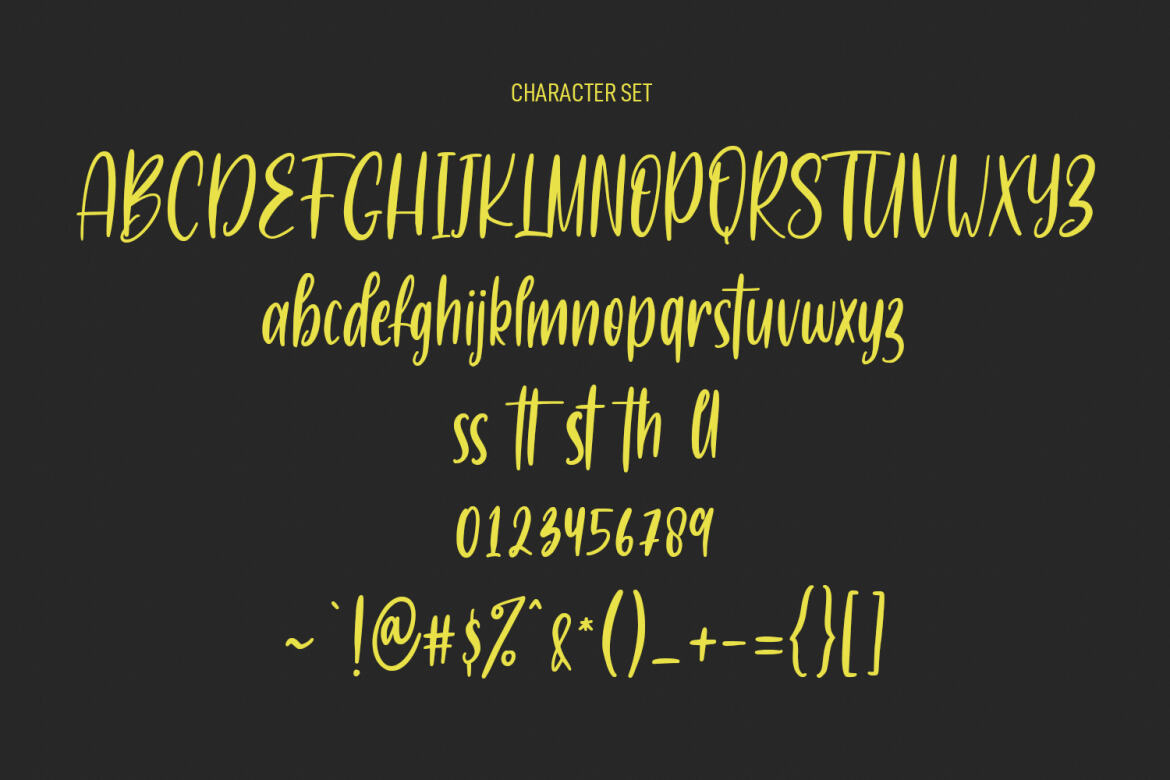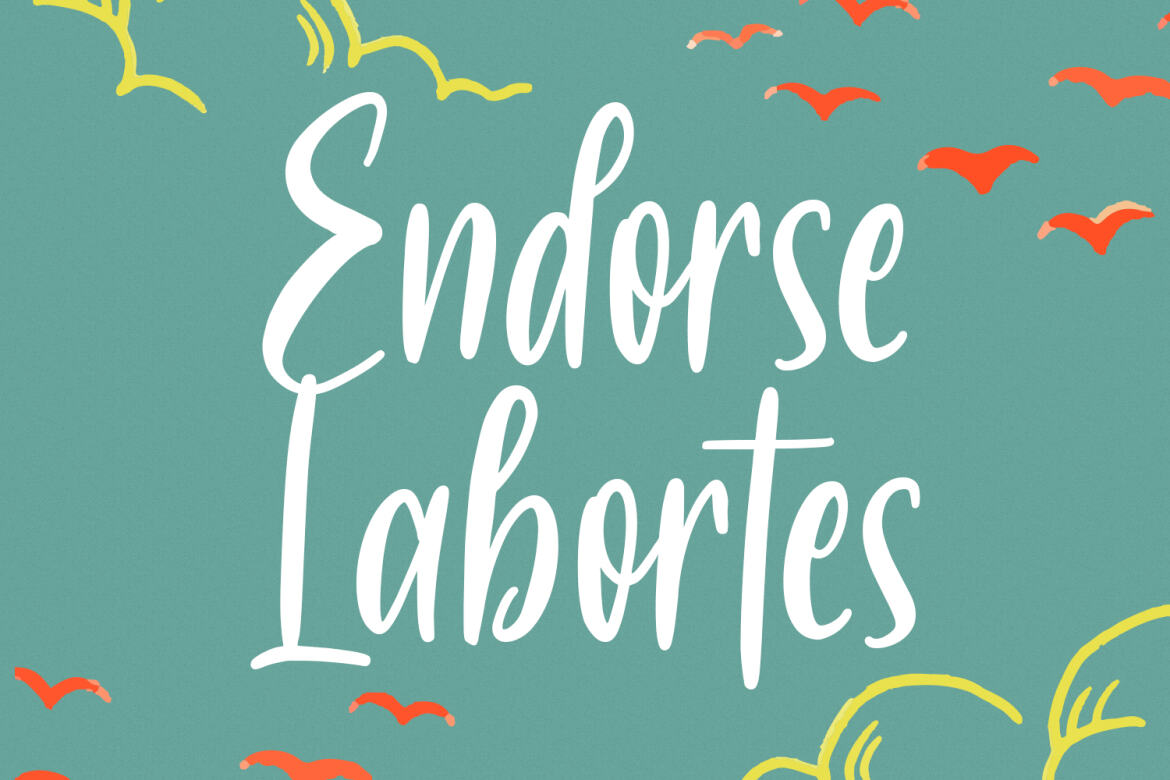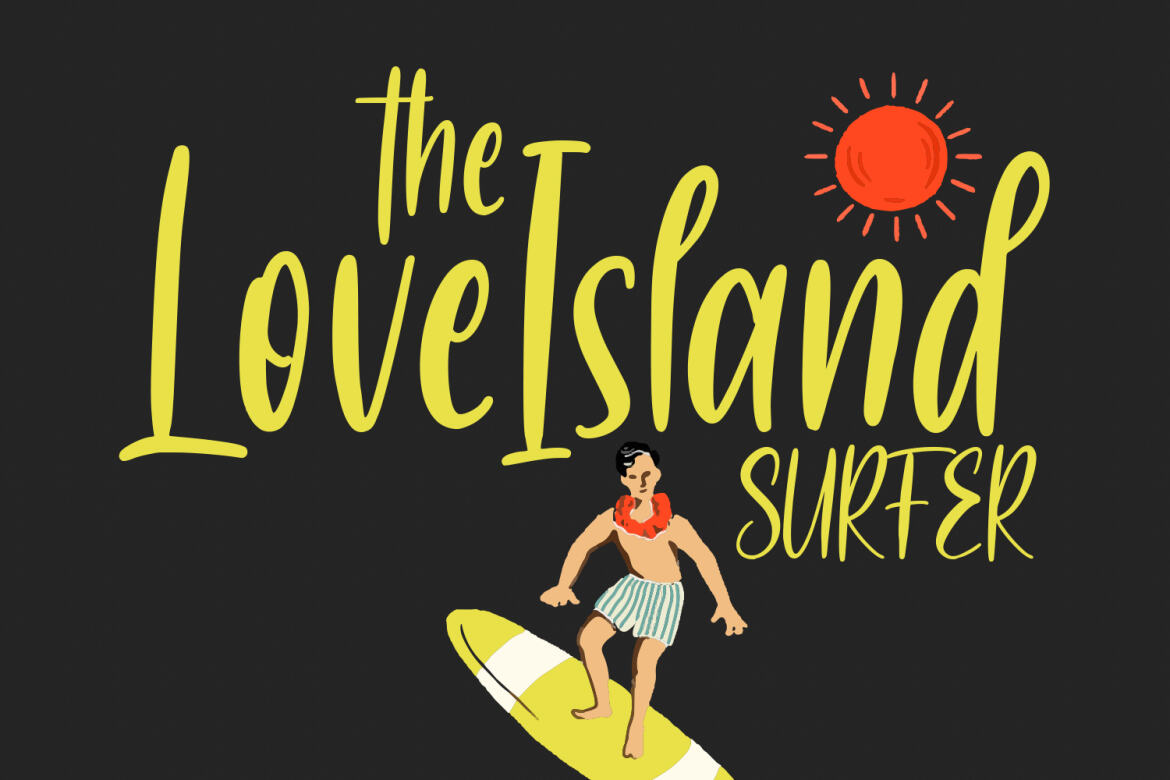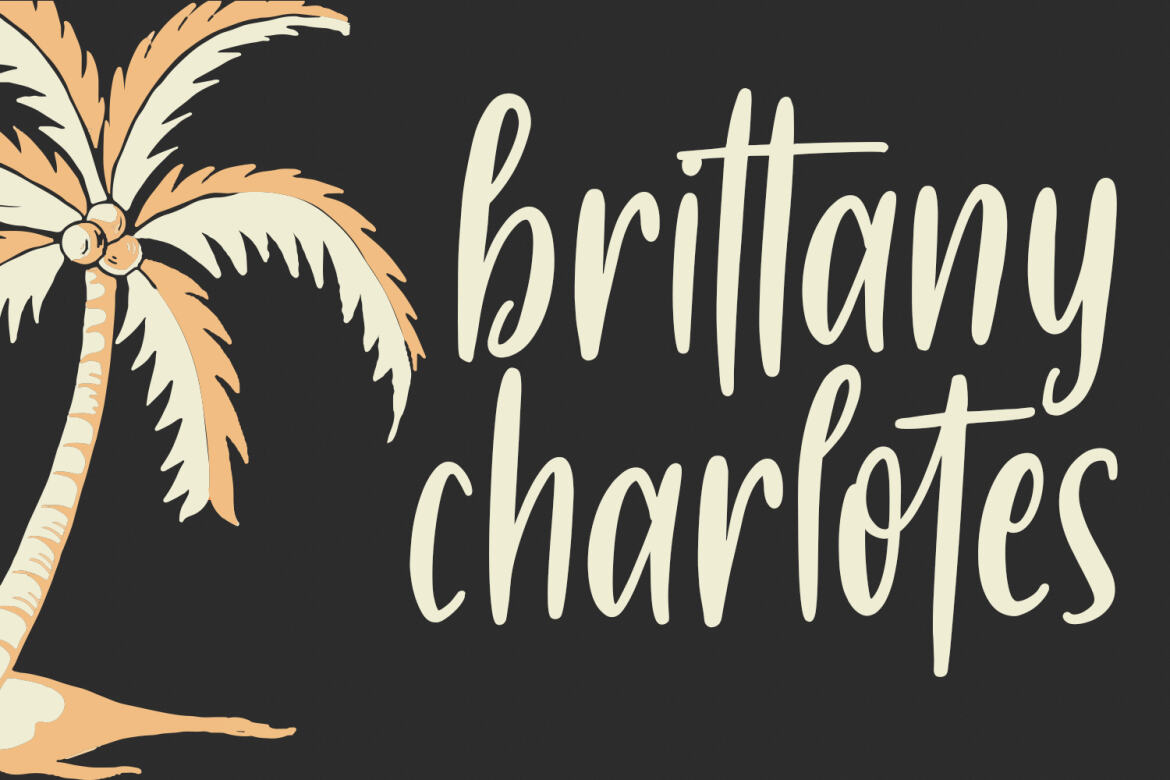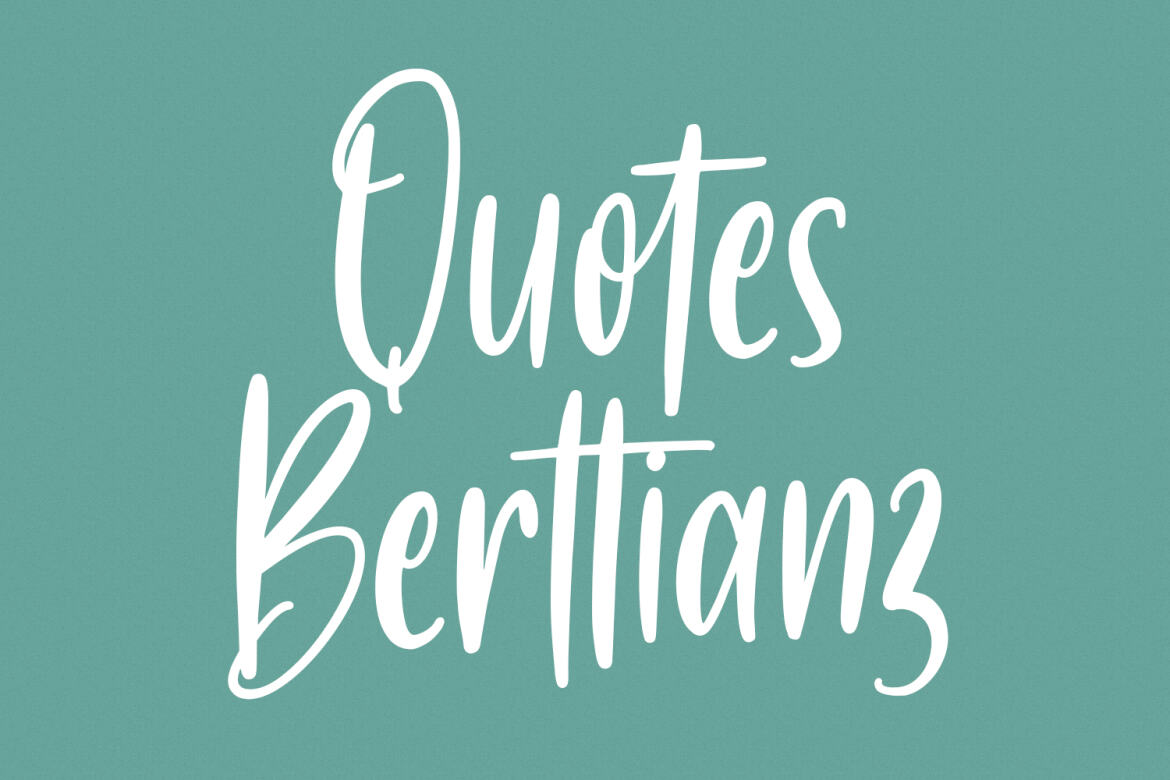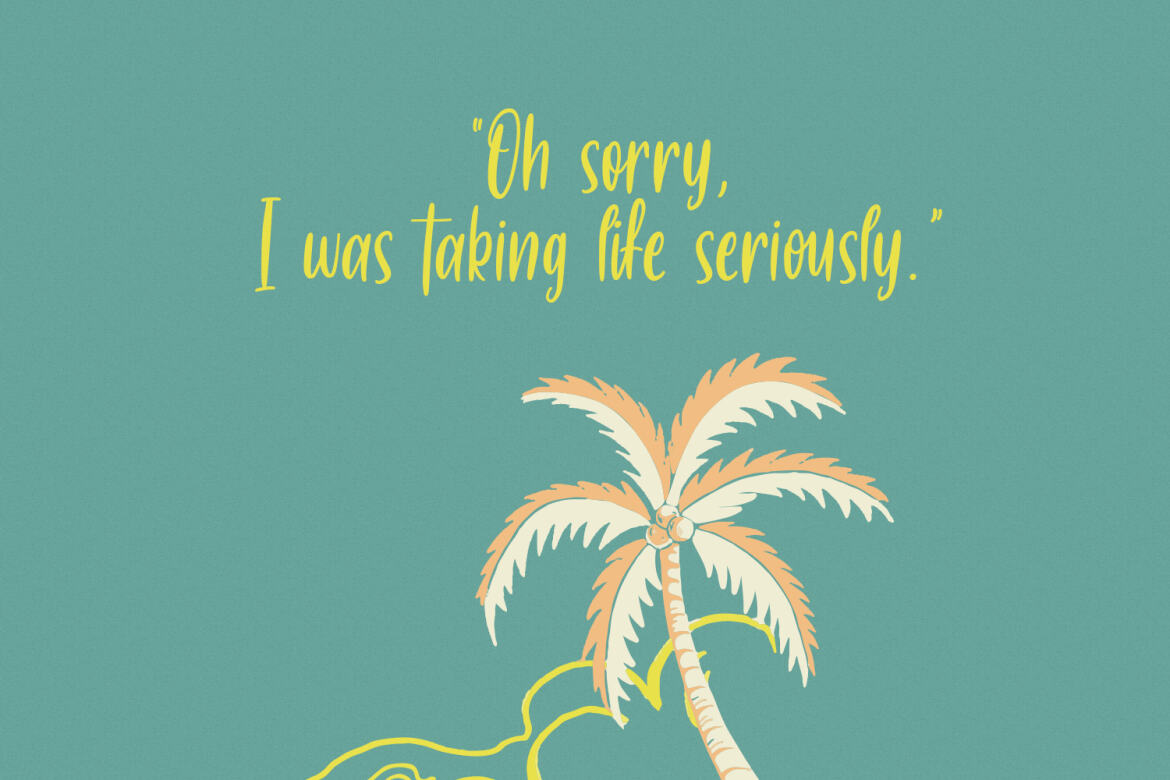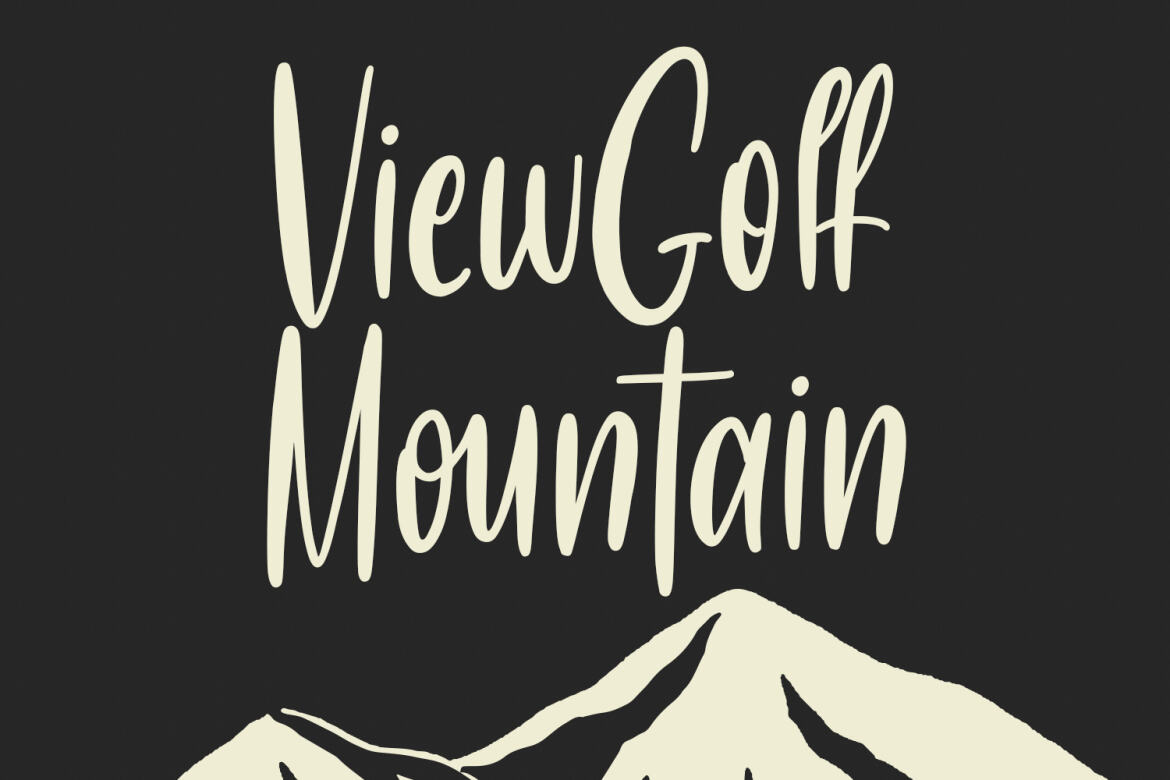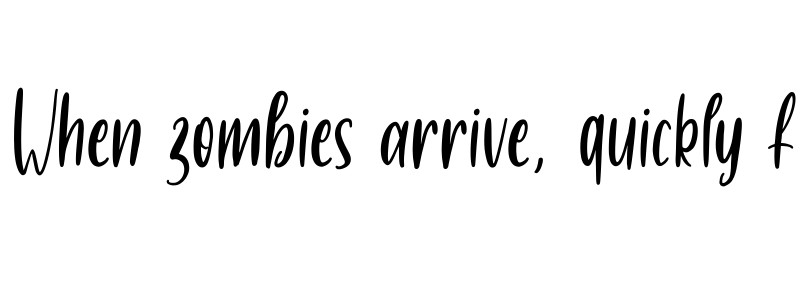
Embroi Ghokib Handwritten FREE Font
Embroi Ghokib is a fancy handwritten script font. With medium contrast stroke, fun character with a bit of ligatures and alternates. To give you an extra creative work. Embroi Ghokib font support multilingual more than 100+ language. This font is good for logo design, Social media, Movie Titles, Books Titles, a short text even a long text letter and good for your secondary text font with sans or serif. Make a stunning work with Embroi Ghokib font.